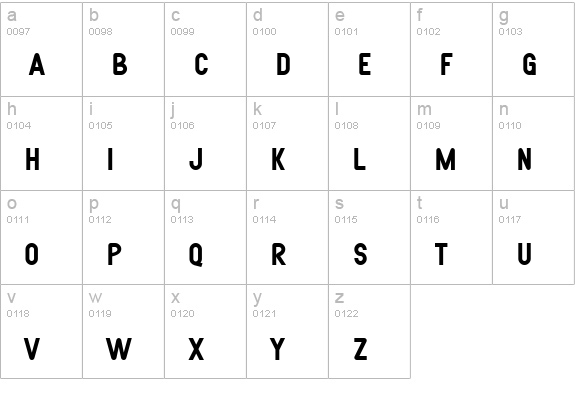
SF Atarian System Bold Font Details
SF Atarian System Bold is a strong, high-contrast variant in the SF typeface family \xE2\x80\x94 well suited to headlines, attention-grabbing titles, and strong calls-to-action.
The SF Atarian System Bold font is a striking and bold typeface that exudes a futuristic and technological vibe. This font is perfect for projects that require a strong and impactful visual presence. Its clean and sleek design makes it highly versatile, suitable for a wide range of applications, including logos, headlines, posters, and branding materials. One of the standout features of the SF Atarian System Bold font is that it is available for free. Yes, you read that right – this high-quality and eye-catching font can be downloaded at no cost! FontsMarket.com is the platform where you can freely access and download this remarkable typeface, making it a fantastic option for designers, creatives, and anyone in need of a bold and modern font. With its sharp and distinctive letterforms, the SF Atarian System Bold font brings a sense of professionalism and sophistication to any design. Its strong presence and attention-grabbing style ensure that your message will be conveyed with impact and clarity. Whether you are creating a website, designing a brochure, or working on a digital or print project, the SF Atarian System Bold font is sure to make a lasting impression. Don't miss out on the opportunity to enhance your designs with this exceptional font. Take advantage of the fact that the SF Atarian System Bold font is freely available to download at FontsMarket.com. Experience the power and versatility of this typeface and elevate your design projects to new heights.